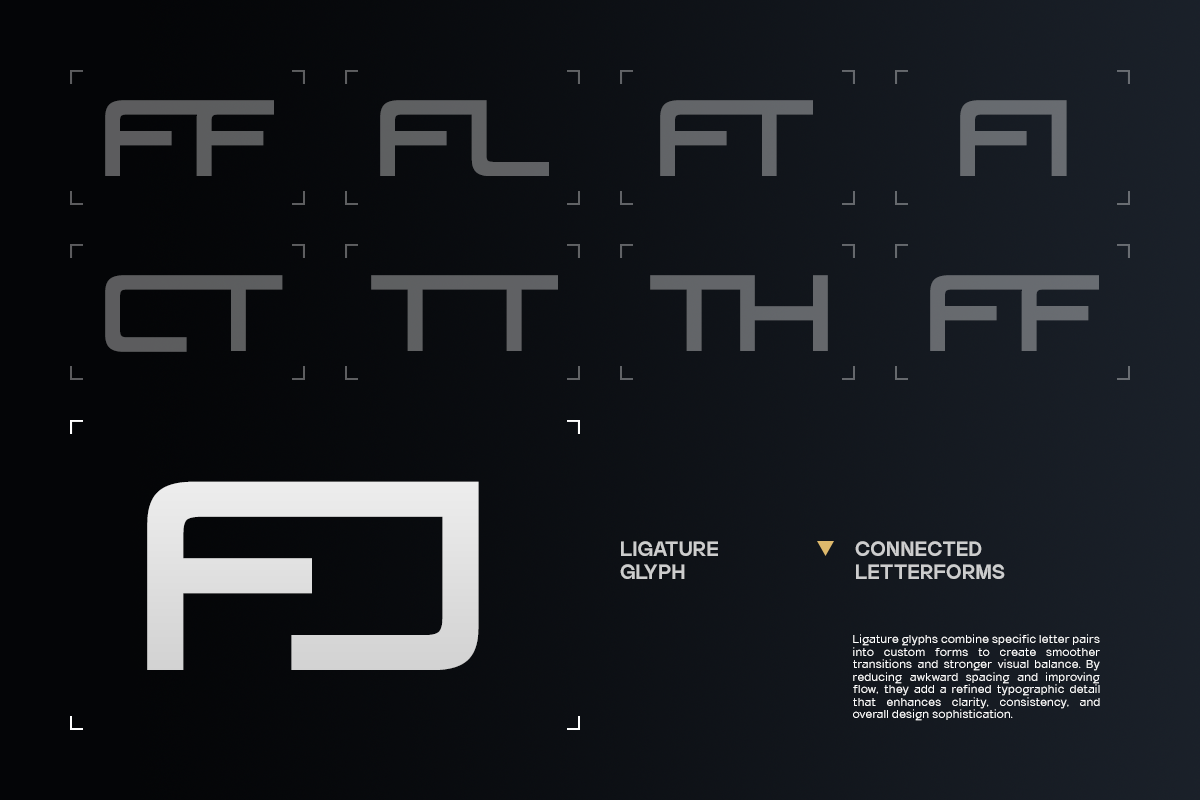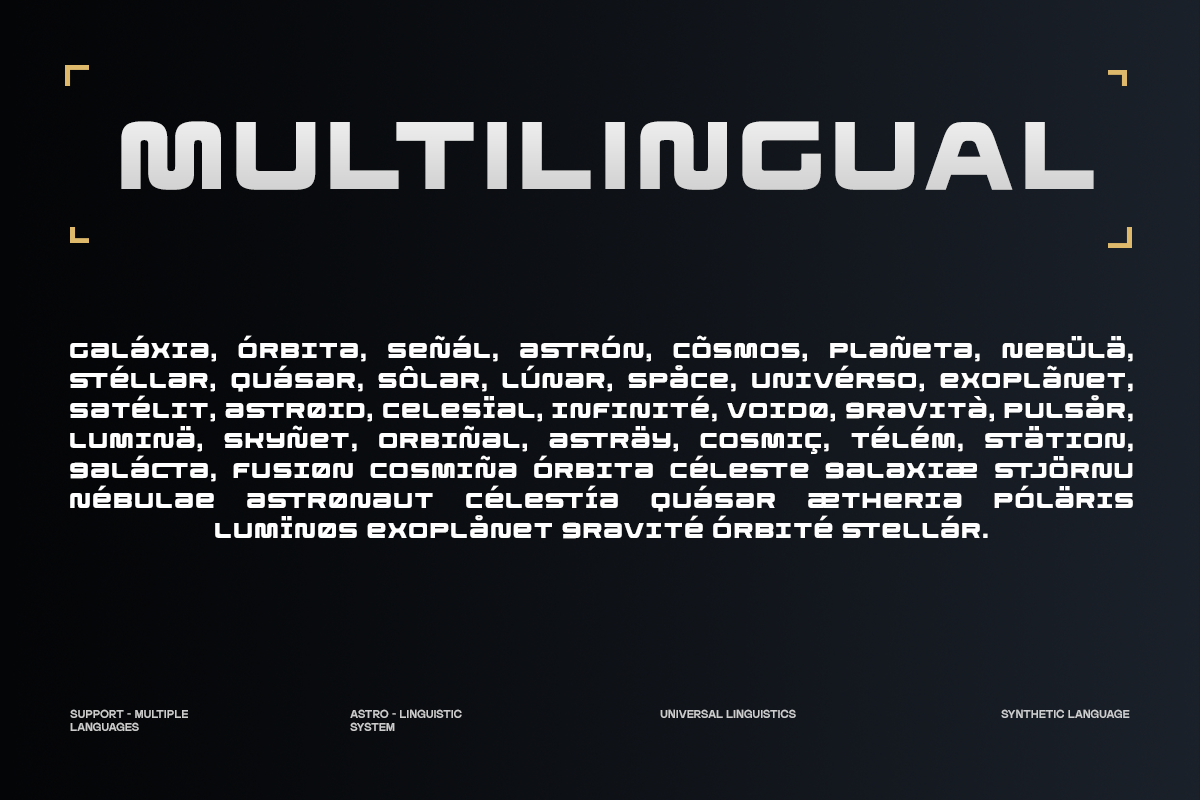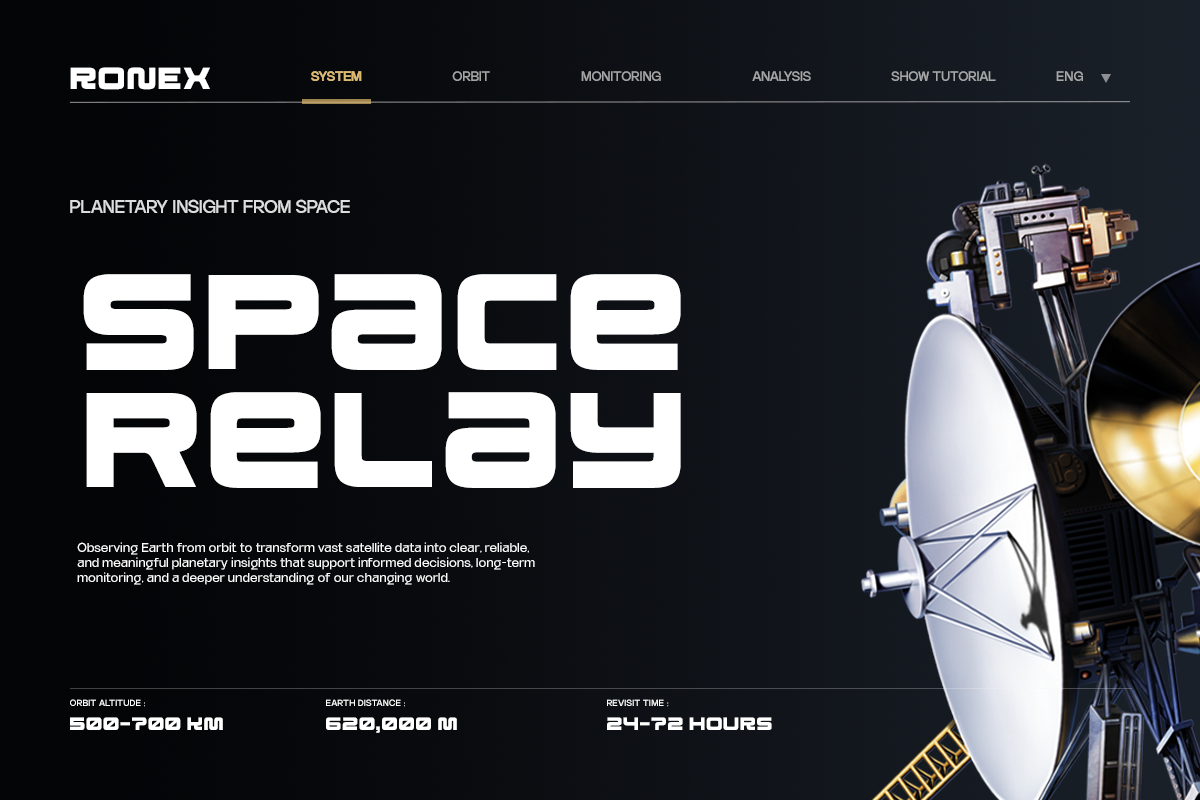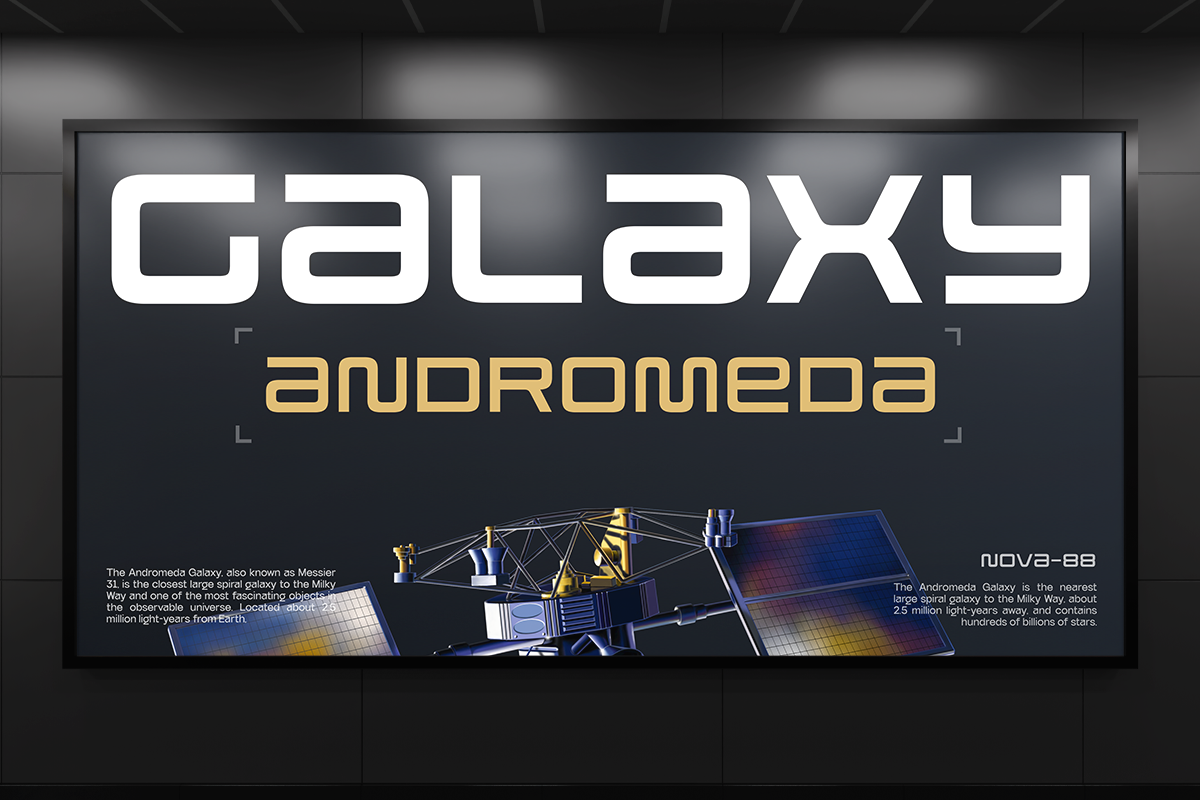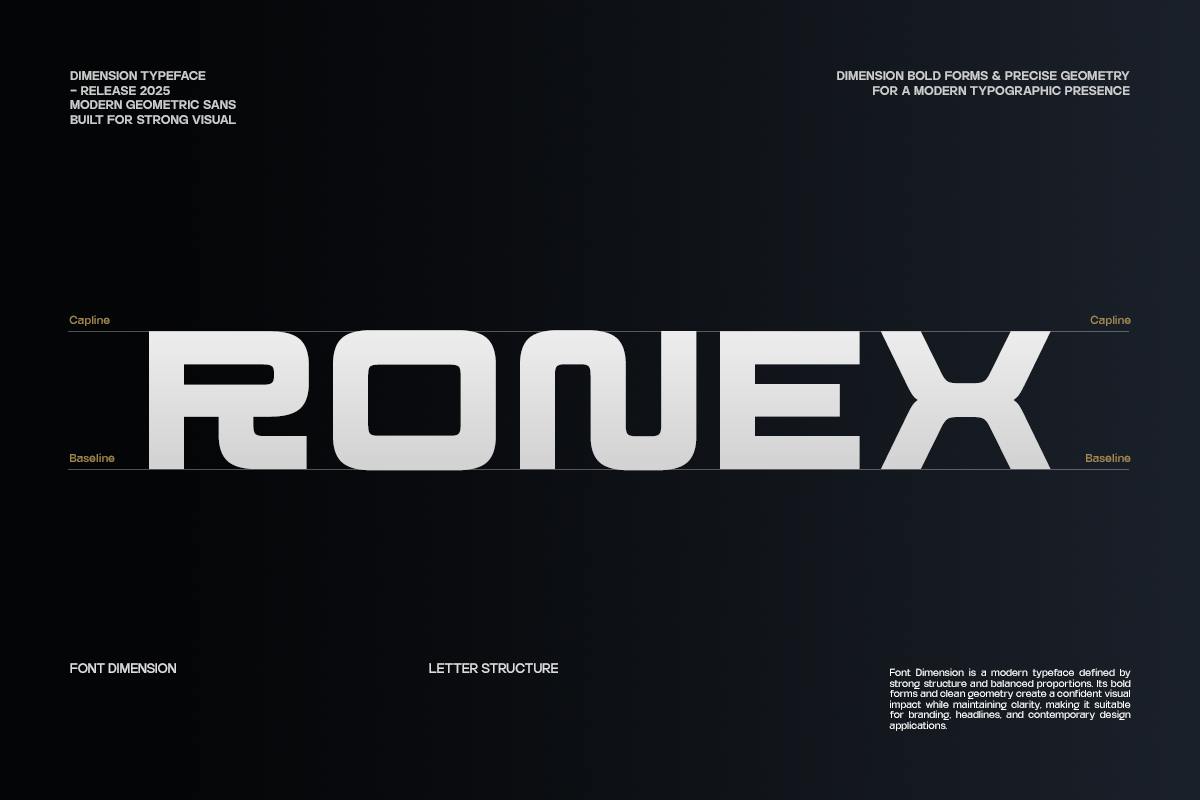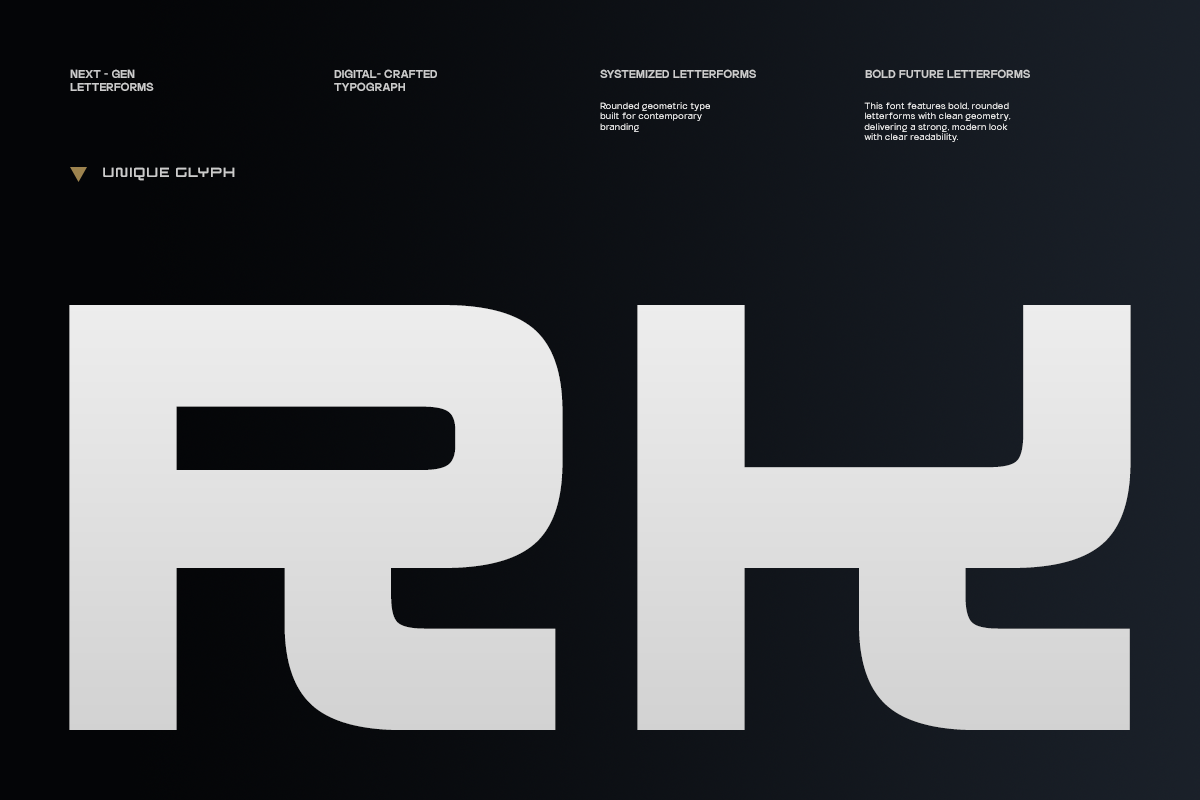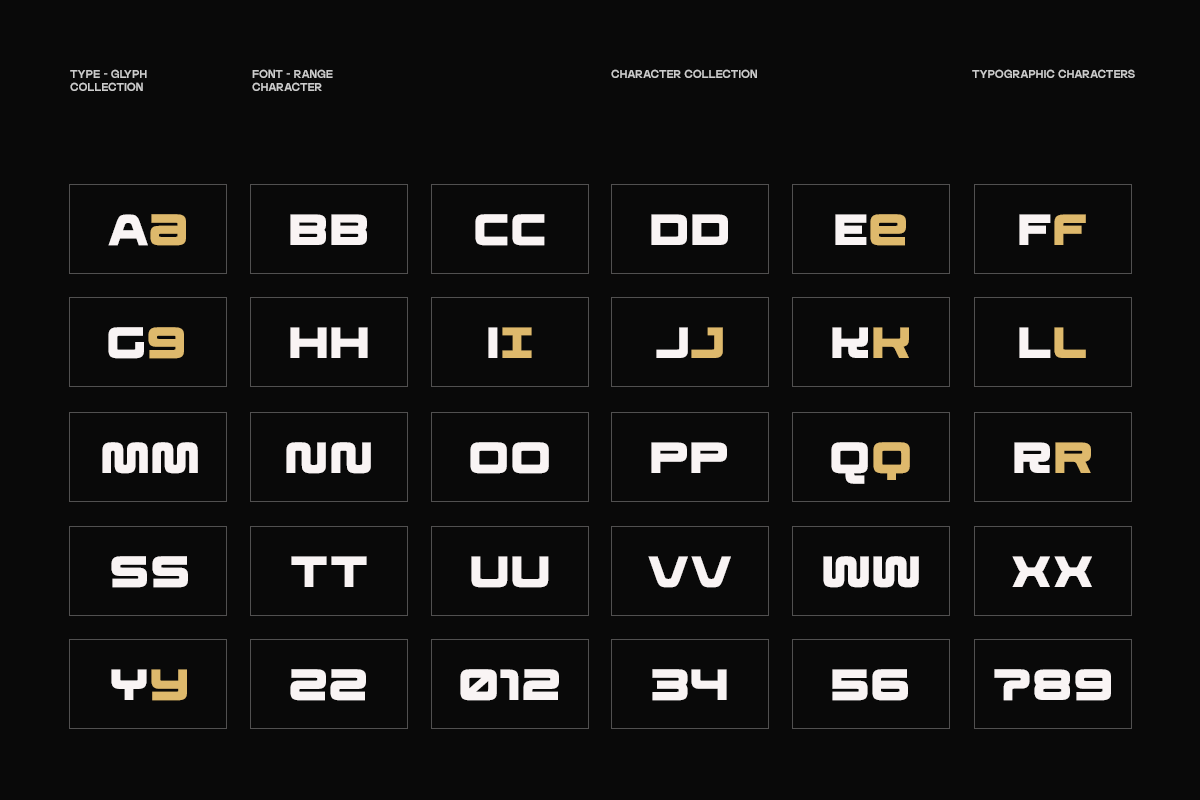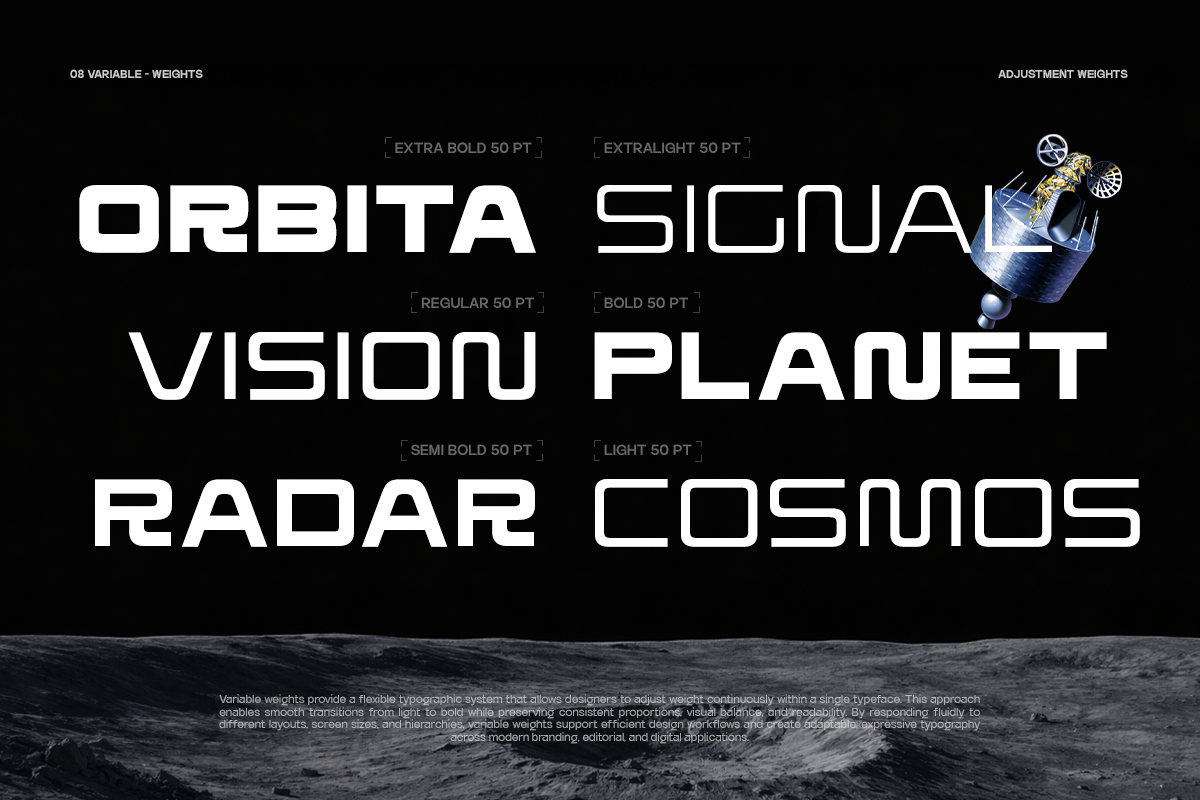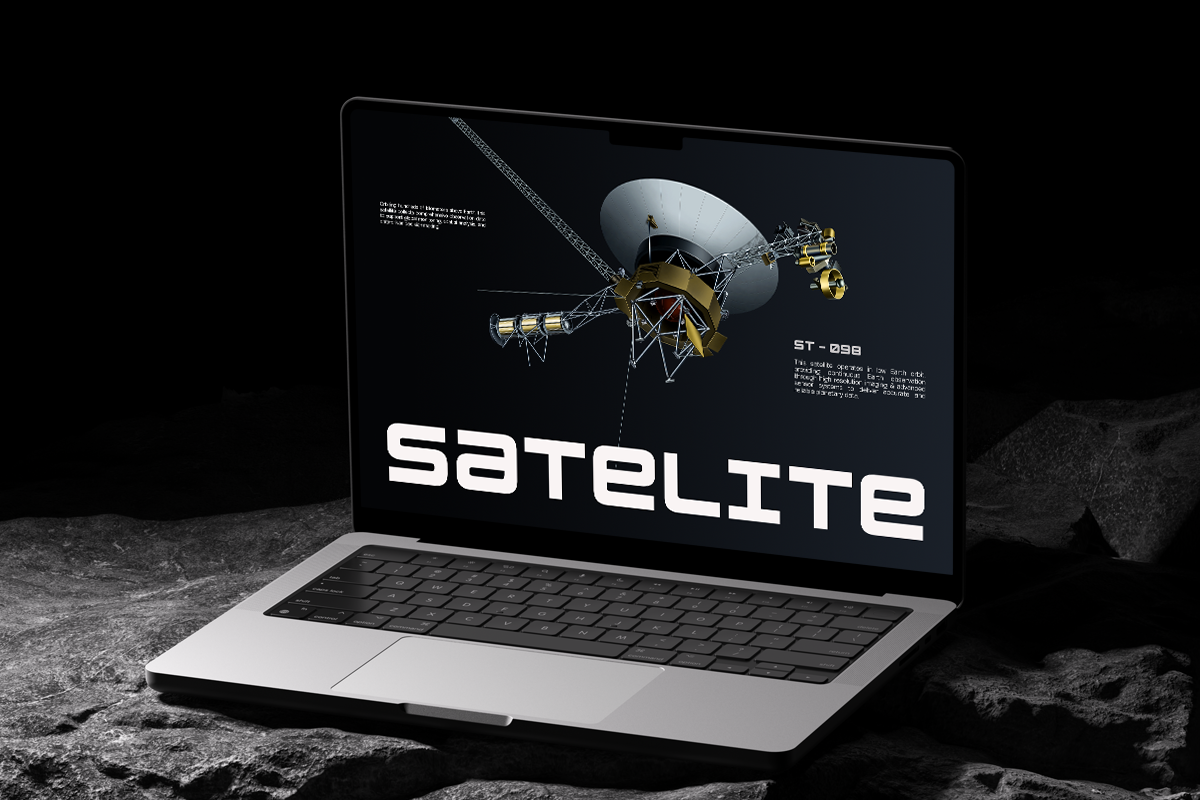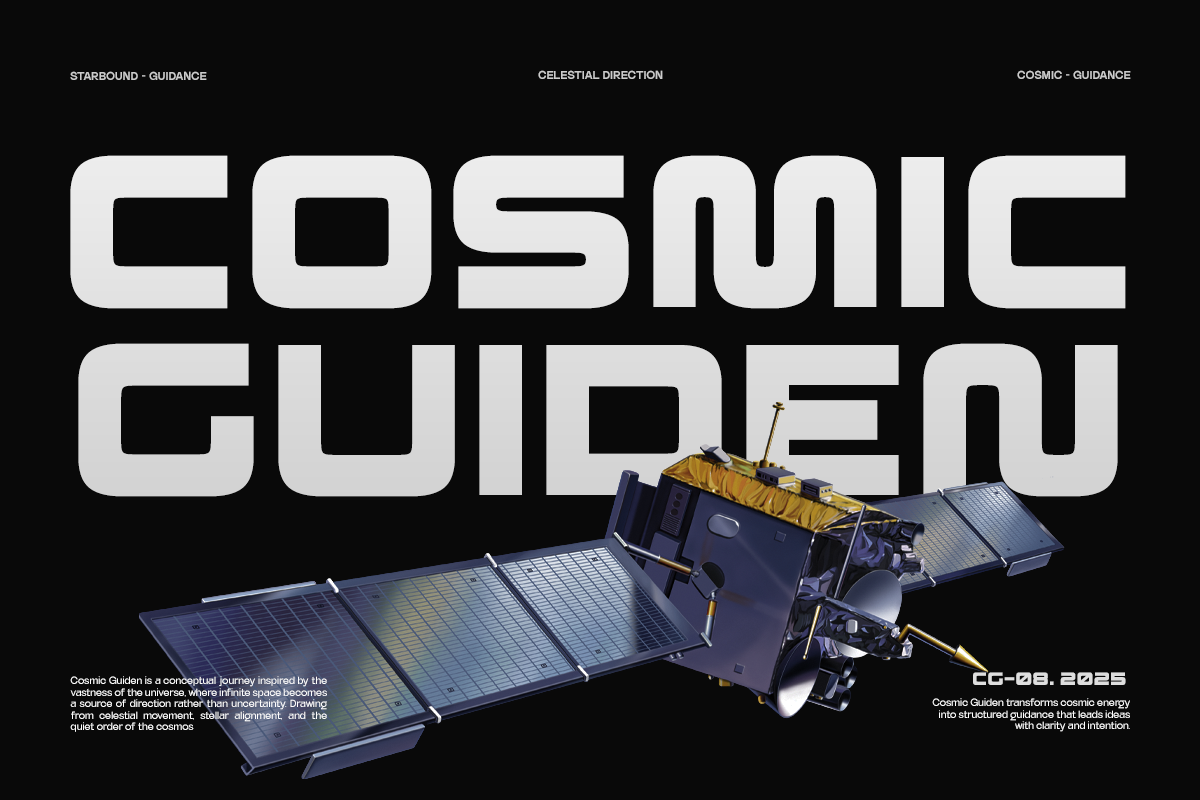
TRT Makron Futuristic Geometric
TRT Makron is a futuristic rounded geometric sans serif typeface designed for sci‑tech visuals, digital interfaces, and contemporary editorial systems. Built with continuous stroke flow, modular construction, and softened corners, TRT Makron delivers a clean yet mechanical character that balances precision with smoothness. Its structure reflects data-driven aesthetics, making it ideal for technology branding, UI titles, sci‑fi concepts, and experimental graphic layouts.
Optimized for display use, TRT Makron performs strongly in headlines, posters, visual hierarchies, and large-scale compositions. The wide proportions, stable geometry, and consistent rhythm create confident visual anchors while maintaining excellent legibility in both dark and light environments.
With its variable font support and stylistic alternates, TRT Makron offers flexibility for designers working in editorial design, digital campaigns, motion graphics, and futuristic branding systems. Across print and screen, the typeface communicates a modern, technological, and forward-looking voice.